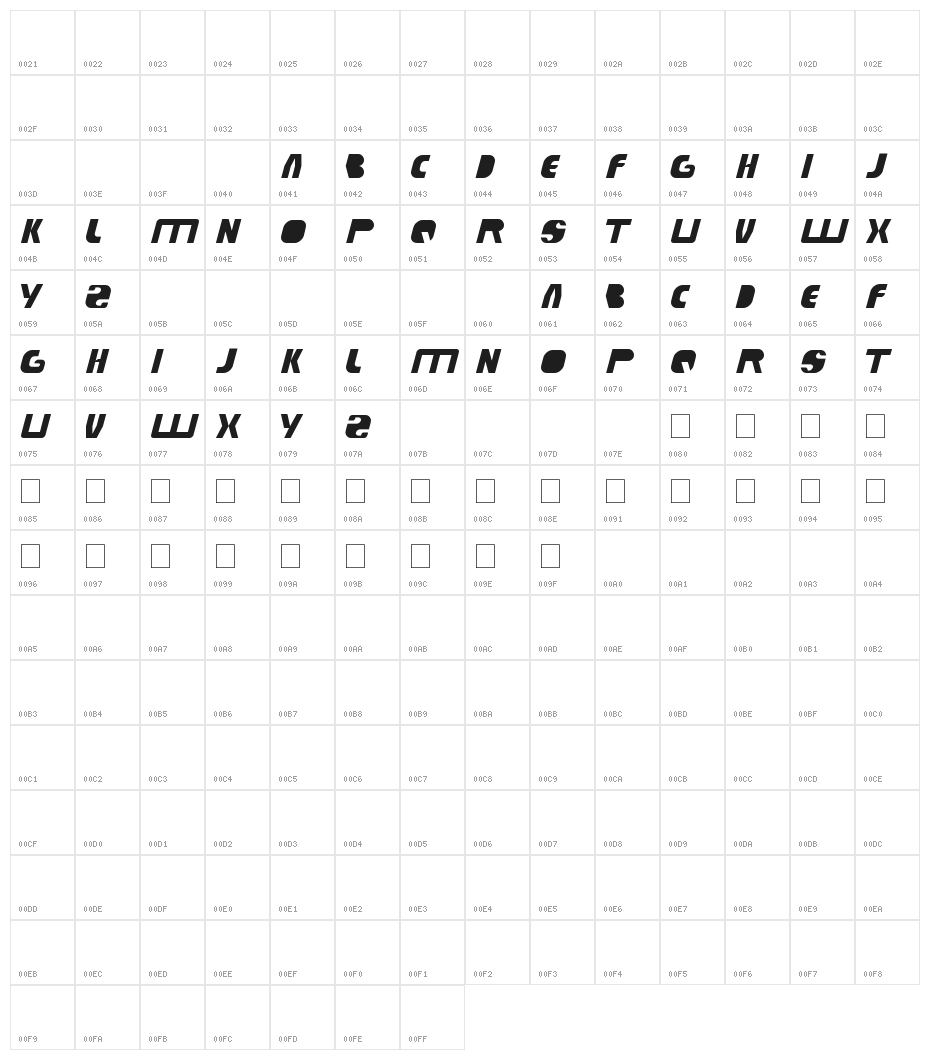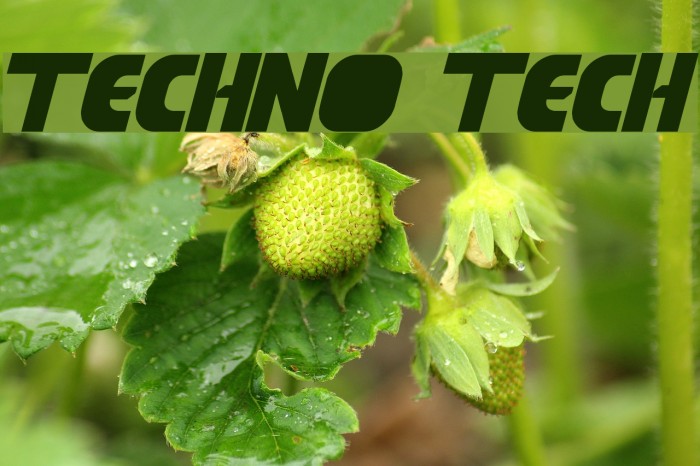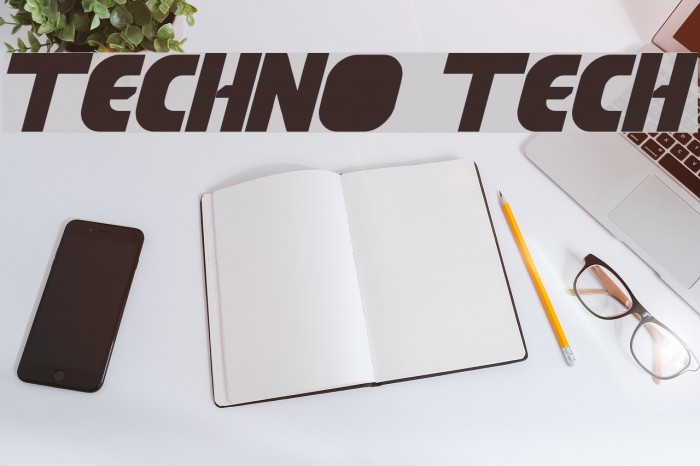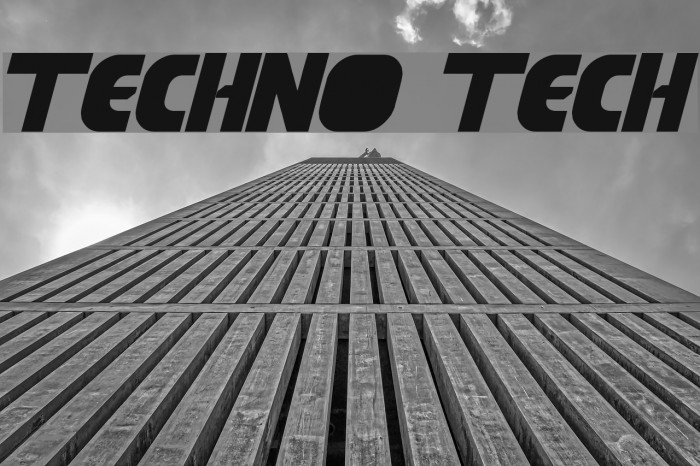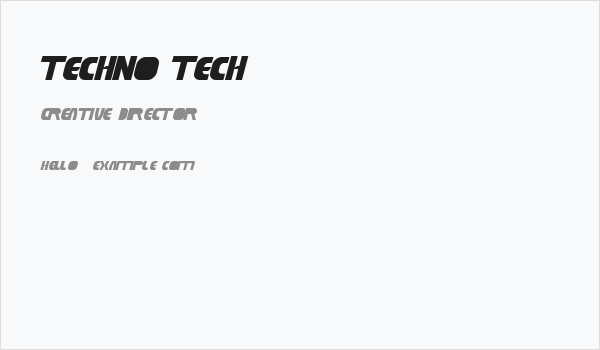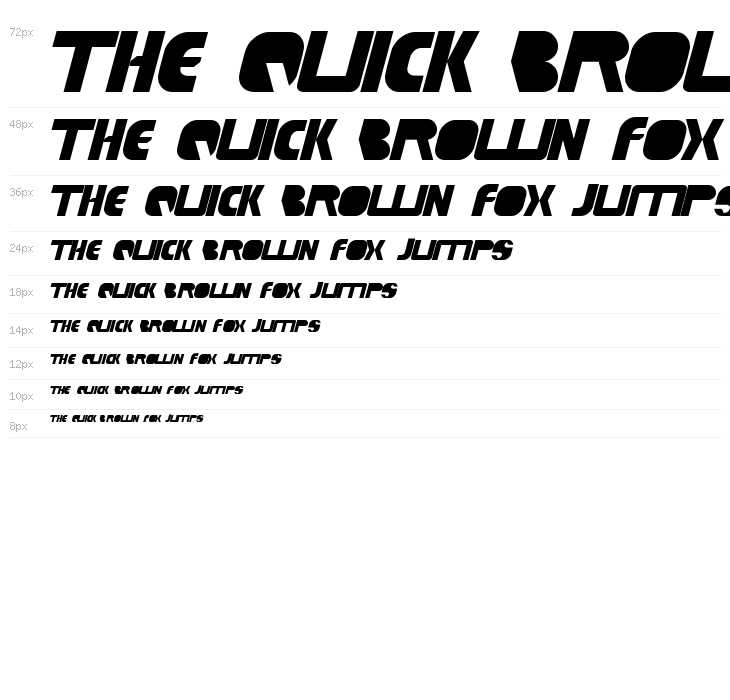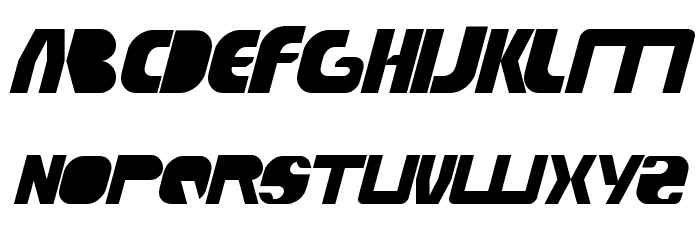
techno tech Font
techno tech Description
This font features a bold, futuristic design with a distinctly angular and geometric style. The characters are crafted with sharp edges and a sense of movement, evoking a high-tech, digital aesthetic. The uppercase letters are particularly striking, with unique cuts and angles that give them a dynamic appearance. The font is highly stylized, making it ideal for projects that require a modern and edgy look. Its boldness ensures strong visibility, while the unique character shapes add a layer of sophistication and intrigue. The font's design is consistent across all characters, maintaining a cohesive and uniform appearance that is both eye-catching and memorable.
| Proposed Projects | Ideal for technology branding, sci-fi movie posters, video game titles, and digital media. |